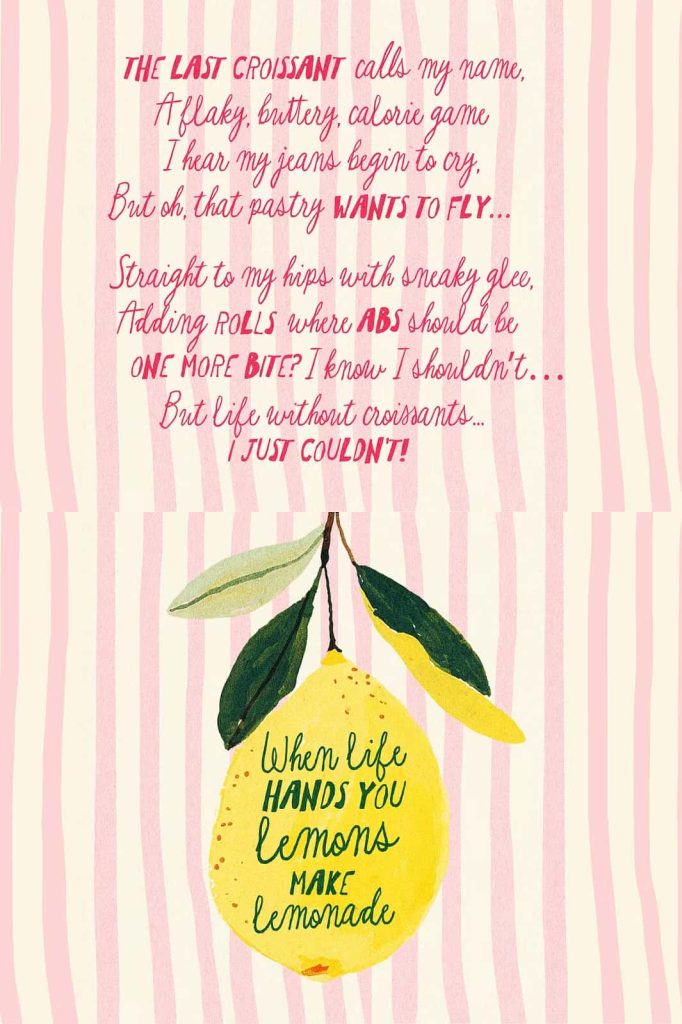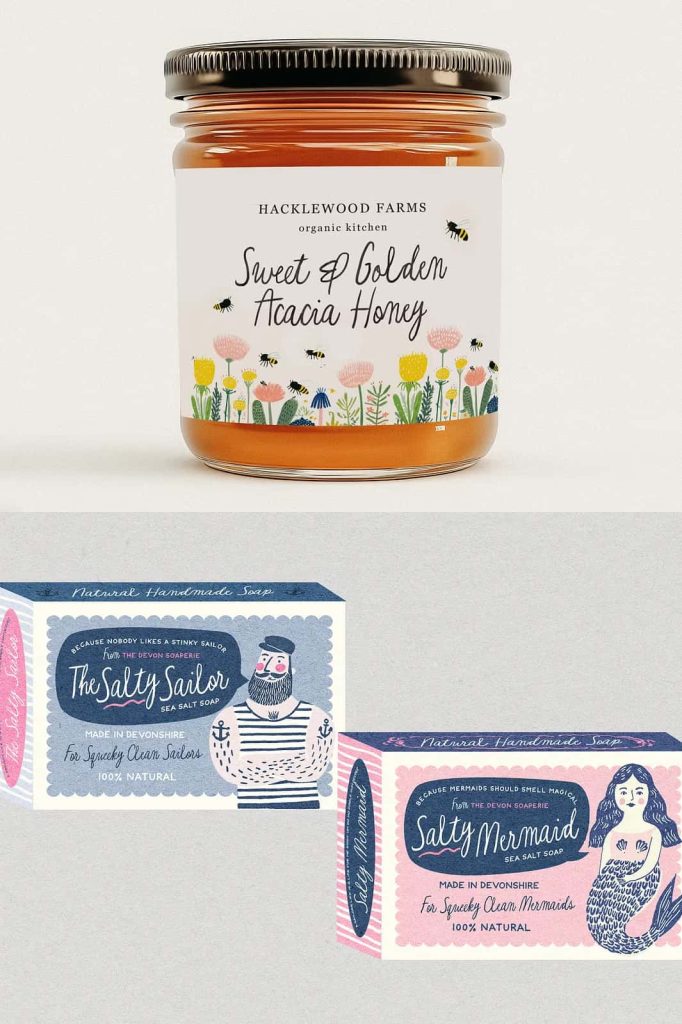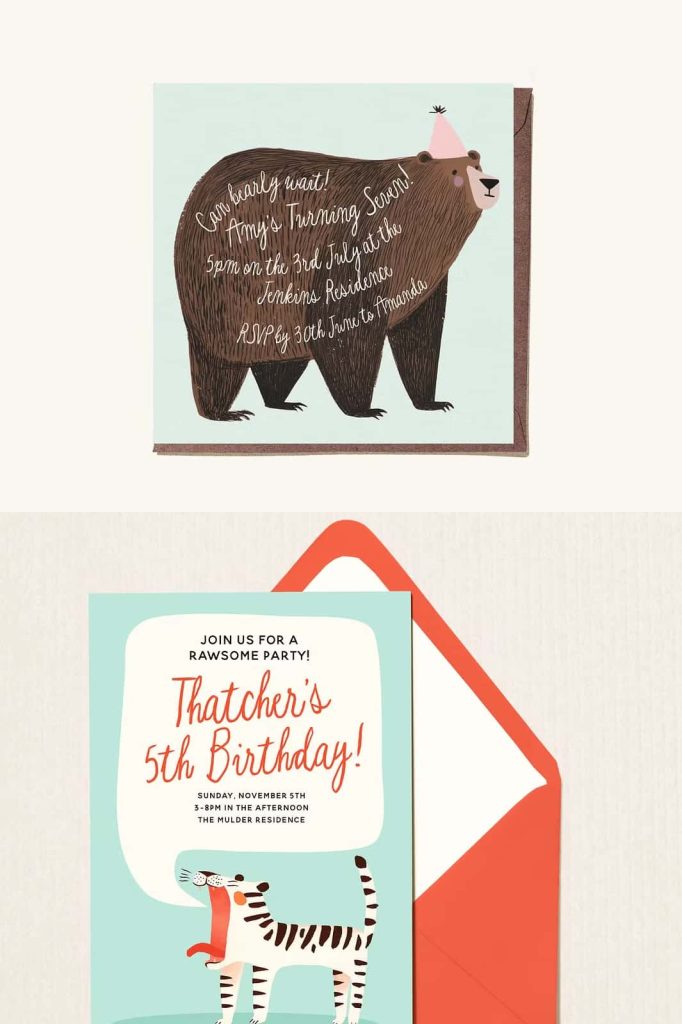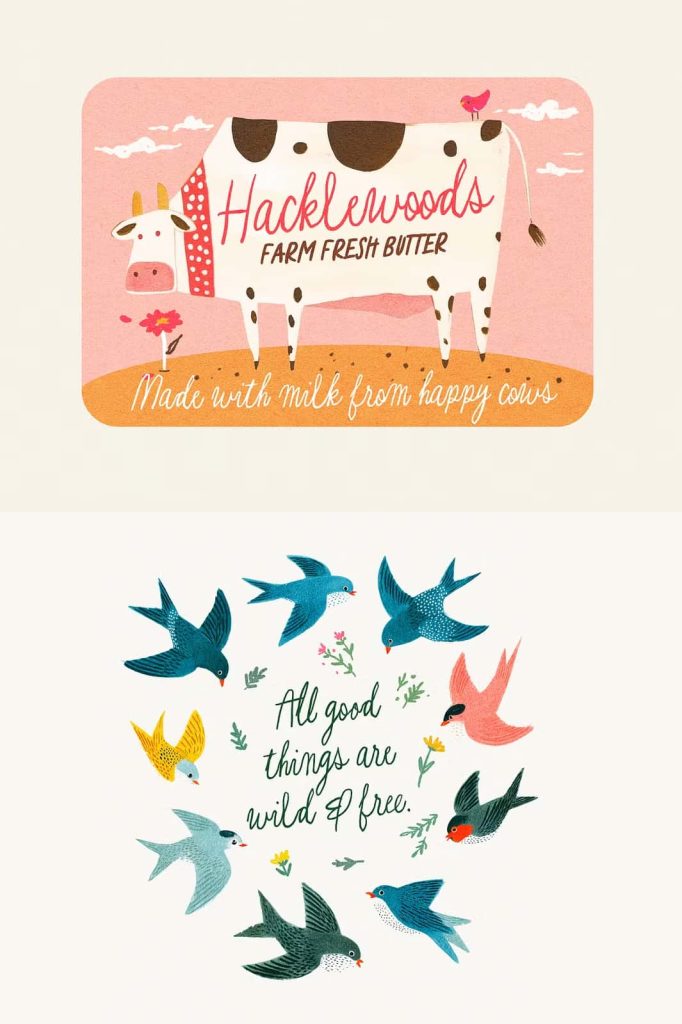
King of Hearts Handwritten Font
King of Hearts Handwritten Font is a fun, expressive, and delightfully imperfect typeface designed to bring personality and charm to creative projects. Inspired by natural handwriting, this font embraces irregular shapes, playful curves, and whimsical details that make every word feel authentic and full of character. Its naturally untidy appearance gives designs a relaxed and approachable personality while maintaining excellent readability across a variety of applications.
Unlike overly polished fonts that can sometimes feel rigid or predictable, King of Hearts celebrates the beauty of imperfection. Every letter carries a handcrafted quality that mimics genuine handwriting, creating a friendly and engaging visual style. Whether you are designing greeting cards, wedding branding, social media graphics, product packaging, or illustrated artwork, this font helps create memorable designs that feel personal and unique.
The playful nature of King of Hearts makes it an excellent choice for designers, artists, crafters, and business owners who want to communicate warmth, creativity, and individuality. Its expressive character allows projects to stand out while maintaining a welcoming and lighthearted tone.
Playful Handwritten Style with Unique Personality
King of Hearts is designed to capture the spontaneous energy of natural handwriting. Its slightly wobbly letterforms and irregular strokes create a relaxed visual rhythm that feels genuine and effortless. Rather than striving for perfect consistency, the font embraces subtle imperfections that add authenticity and charm to every design.
This playful personality helps create typography that feels more human and relatable. The organic flow of the letters brings movement and life to headlines, logos, invitations, and decorative text, making every composition more engaging and visually appealing.
The font’s handcrafted appearance allows designers to create work that feels creative and approachable while maintaining professional quality.
Perfect for Greeting Cards and Invitations
When creating greeting cards and invitations, typography plays a major role in setting the tone of the design. King of Hearts brings warmth, friendliness, and character to every message, making it an ideal choice for personal and celebratory occasions.
Its handwritten style helps create invitations that feel custom-made and heartfelt. Whether used for birthday invitations, baby showers, bridal celebrations, holiday cards, or special announcements, the font adds a personal touch that makes every design feel more meaningful.
The charming imperfections of King of Hearts help transform simple text into expressive visual communication that resonates with readers and recipients alike.
Create Memorable Branding with a Fun and Friendly Feel
Modern brands often seek typography that feels authentic and approachable. King of Hearts offers exactly that through its playful handwritten style and distinctive character. The font works exceptionally well for businesses that want to project creativity, warmth, and personality.
Small businesses, handmade product brands, creative studios, cafés, bakeries, children’s brands, and lifestyle companies can all benefit from the unique charm of this typeface. Its whimsical appearance helps establish a memorable visual identity that stands apart from generic typography.
Whether featured in logos, packaging, advertising materials, or social media content, King of Hearts adds a recognizable and engaging personality that strengthens brand communication.
Features of King of Hearts Handwritten Font
- Playful handwritten letterforms
- Naturally wobbly and organic character shapes
- Authentic handcrafted appearance
- Built-in OpenType ligatures for natural lettering flow
- Perfect for branding and creative projects
- Excellent readability for print and digital use
- Whimsical and expressive visual style
- Ideal for invitations, cards, and decorative typography
- Unique personality with charming imperfections
- Suitable for personal and commercial design projects
Natural OpenType Ligatures for Authentic Lettering
One of the standout features of King of Hearts is its collection of natural OpenType ligatures. These special character combinations automatically connect selected letters to create smoother and more realistic handwriting effects. The result is typography that feels fluid, organic, and visually balanced.
By enabling OpenType features in compatible design software, users can access these ligatures effortlessly and enhance the natural appearance of their text. This additional level of detail helps create professional-quality typography while preserving the font’s playful and handcrafted personality.
The ligatures contribute to a more authentic handwritten experience, making King of Hearts particularly attractive for designers who value fine typographic details.
For designers seeking a font that celebrates imperfection and creativity, King of Hearts Handwritten Font is an exceptional choice. It transforms ordinary text into playful visual storytelling, helping every project feel more memorable, inviting, and uniquely handcrafted.